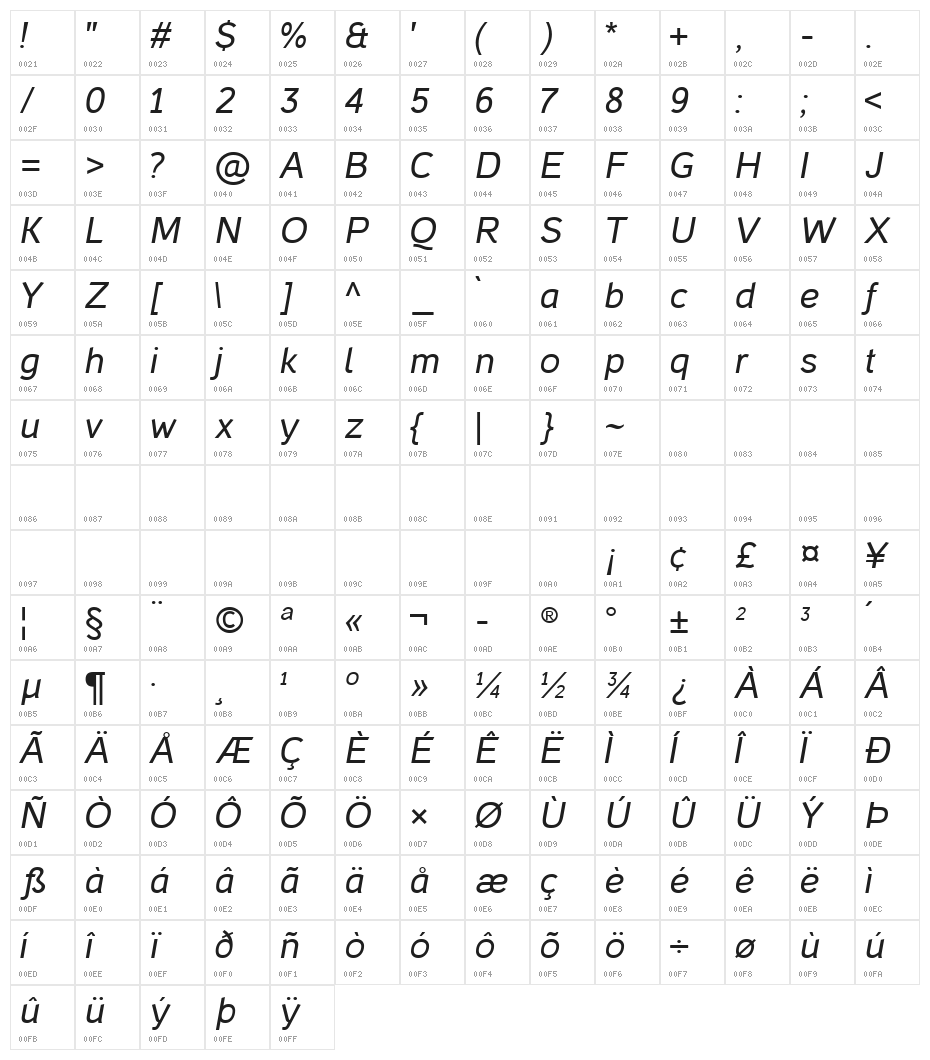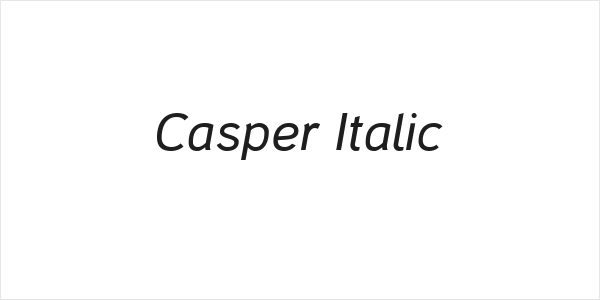
Casper Italic Font
Casper Italic Description
This font features a sleek and modern italic style, characterized by its smooth curves and slightly slanted letters. The uppercase letters are bold and prominent, while the lowercase letters maintain a consistent flow, enhancing readability. The numerals are clear and distinct, with a uniform height that aligns well with the text. Special characters are well-defined, adding versatility to the font's usage. The overall design is clean and professional, making it suitable for a variety of applications.
| Proposed Projects | Ideal for branding, advertising, and editorial design projects where a modern and professional look is desired. |